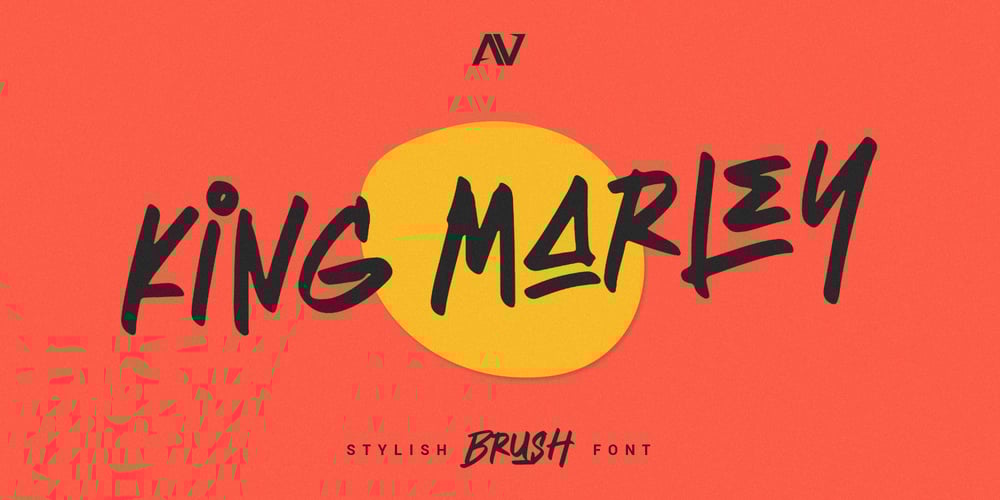
King Marley
King Marley font
King Marley Font Family was designed by I Gede Sugiantara and published by Arsa Visual. King Marley contains 1 styles and family package options. King Marley is a brush font that looks stylish and modern perfect for your modern project. King Marley It contains uppercase, lowercase, ligature and swash. Perfect for branding projects, logo, social media posts, advertisements, product packaging, product designs, label, photography and any projects that need handwriting taste.